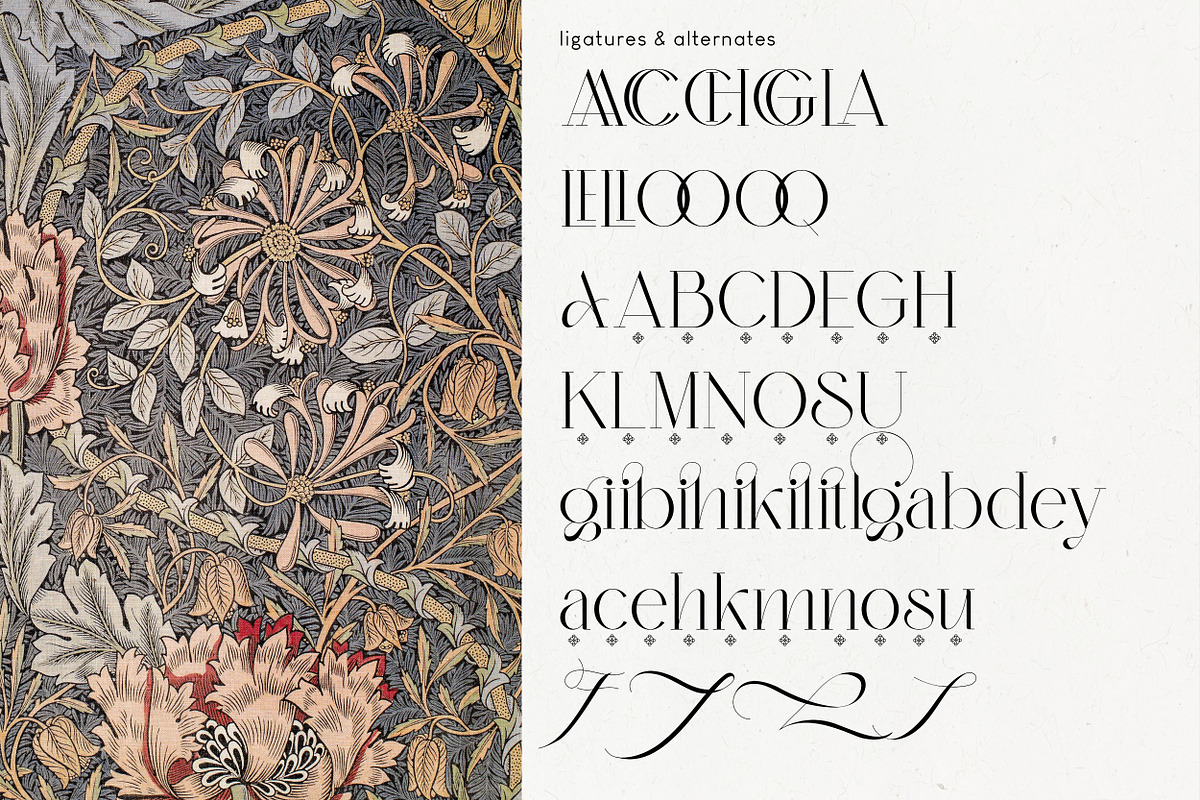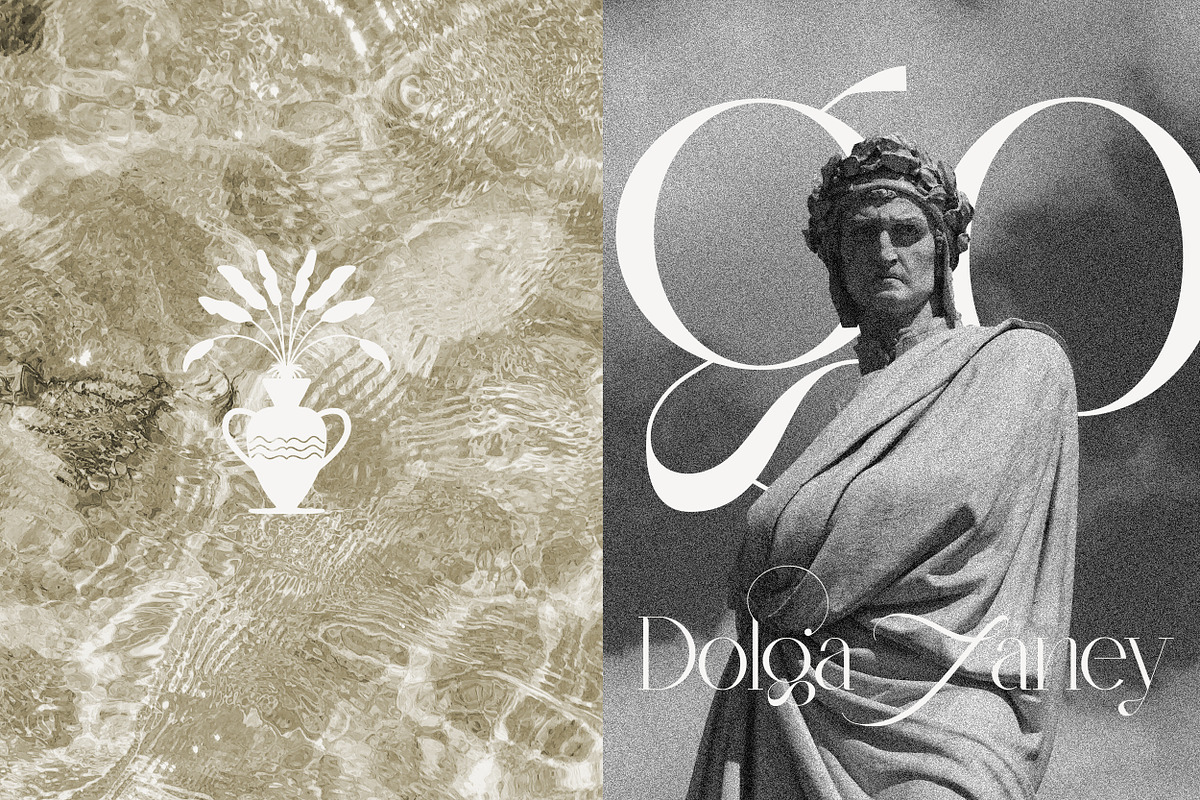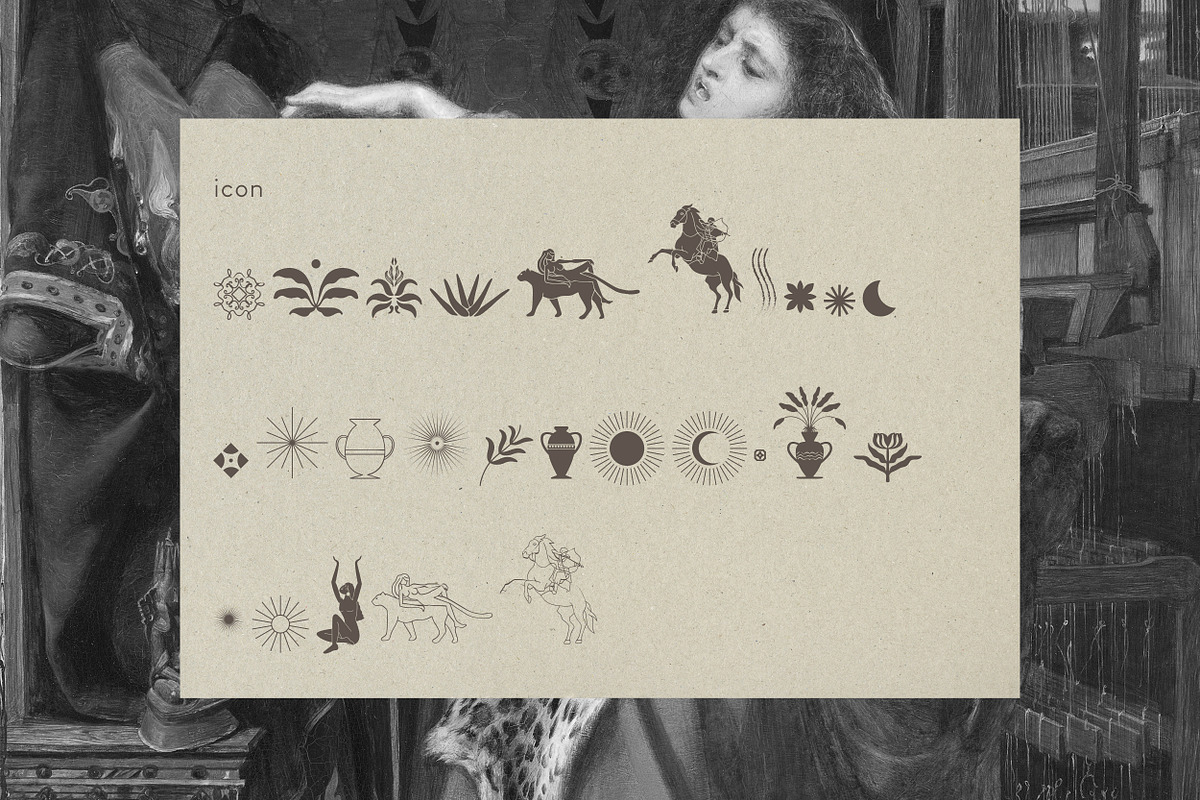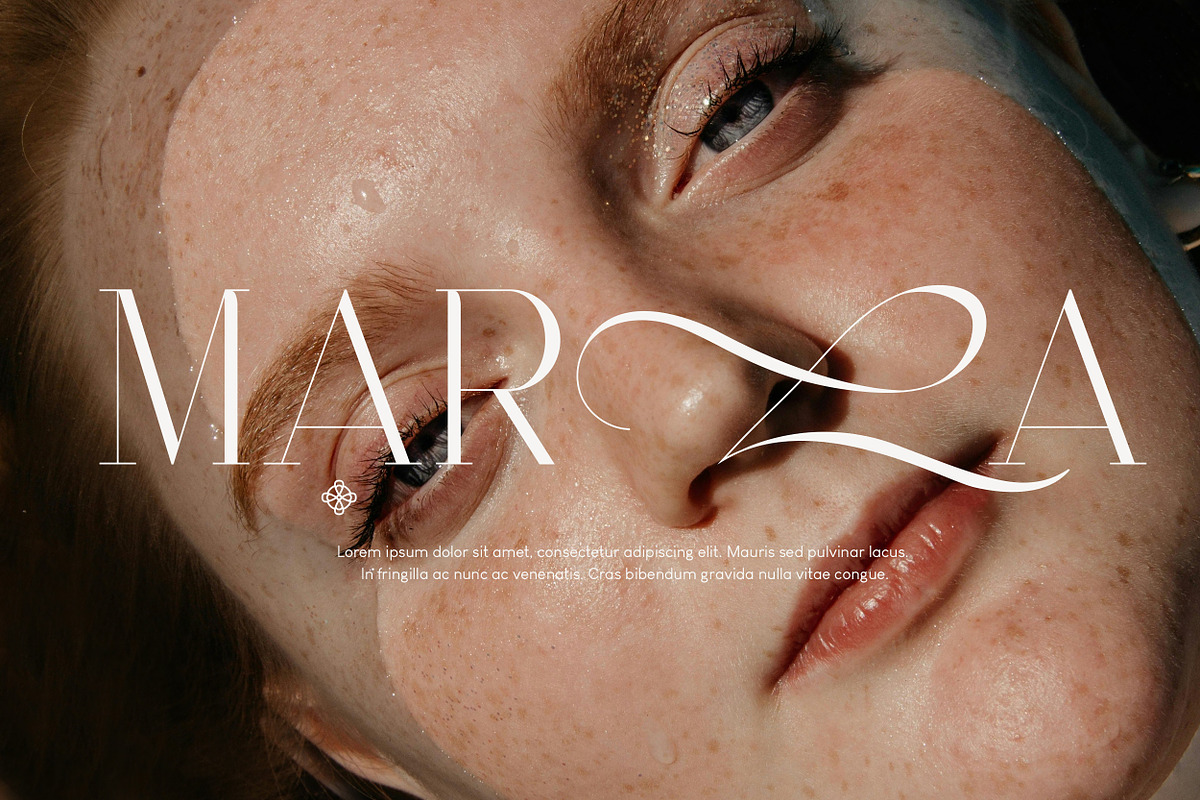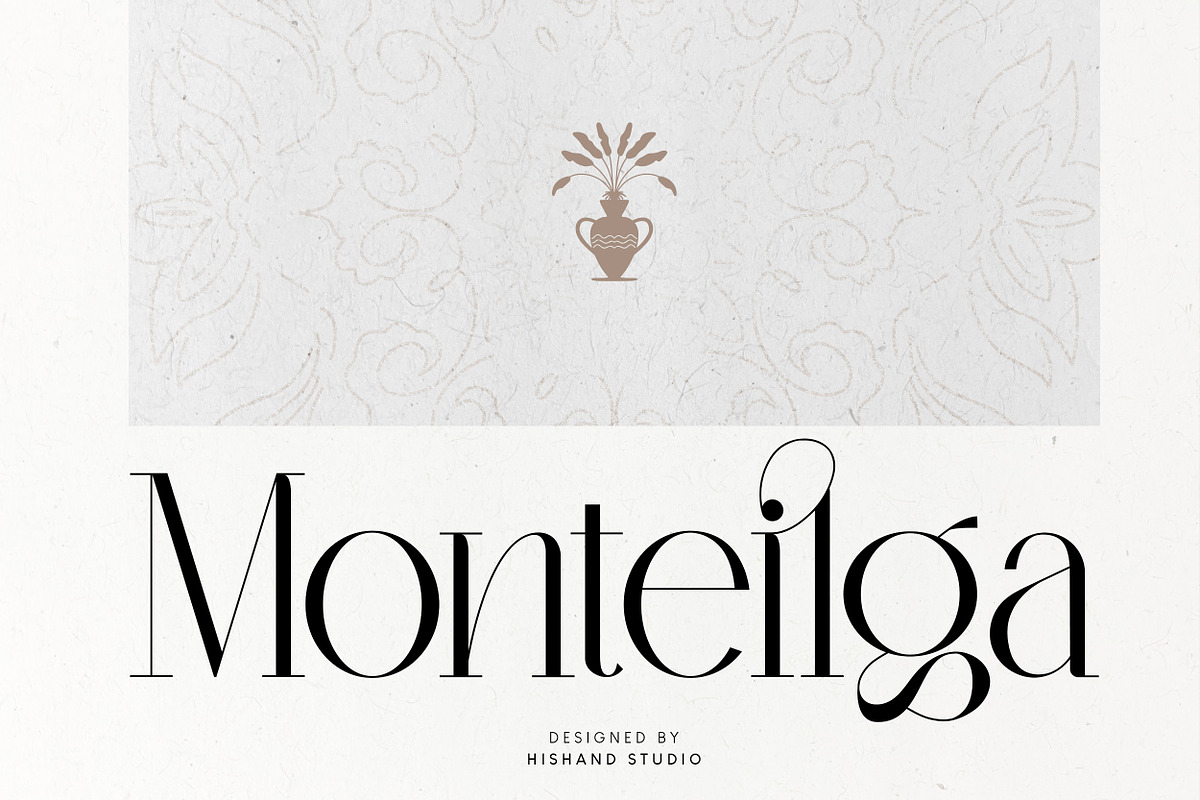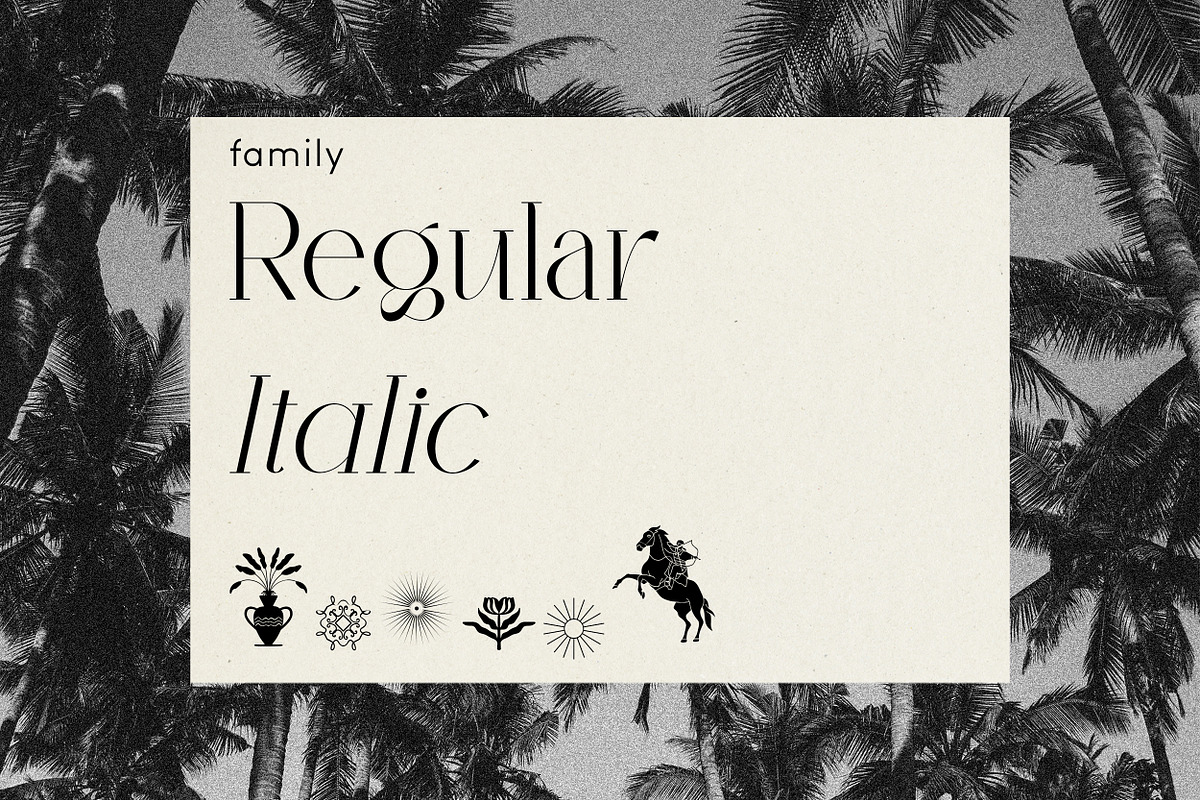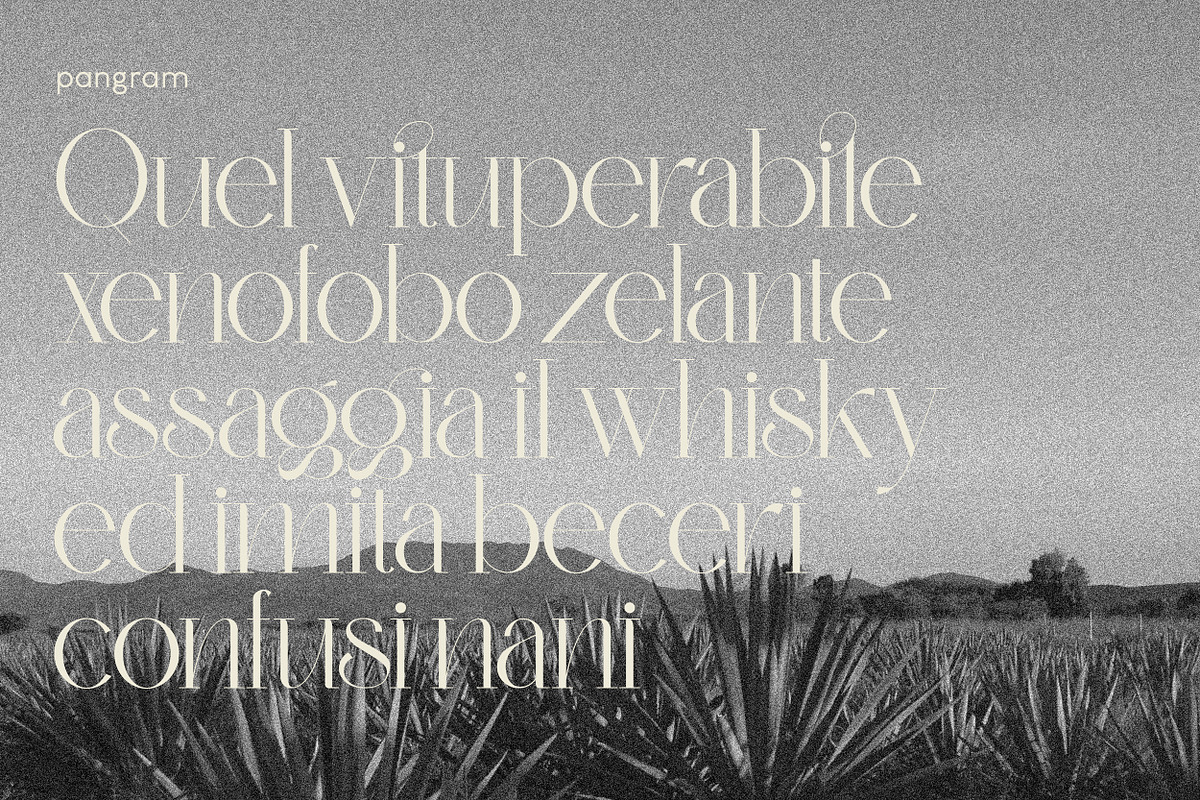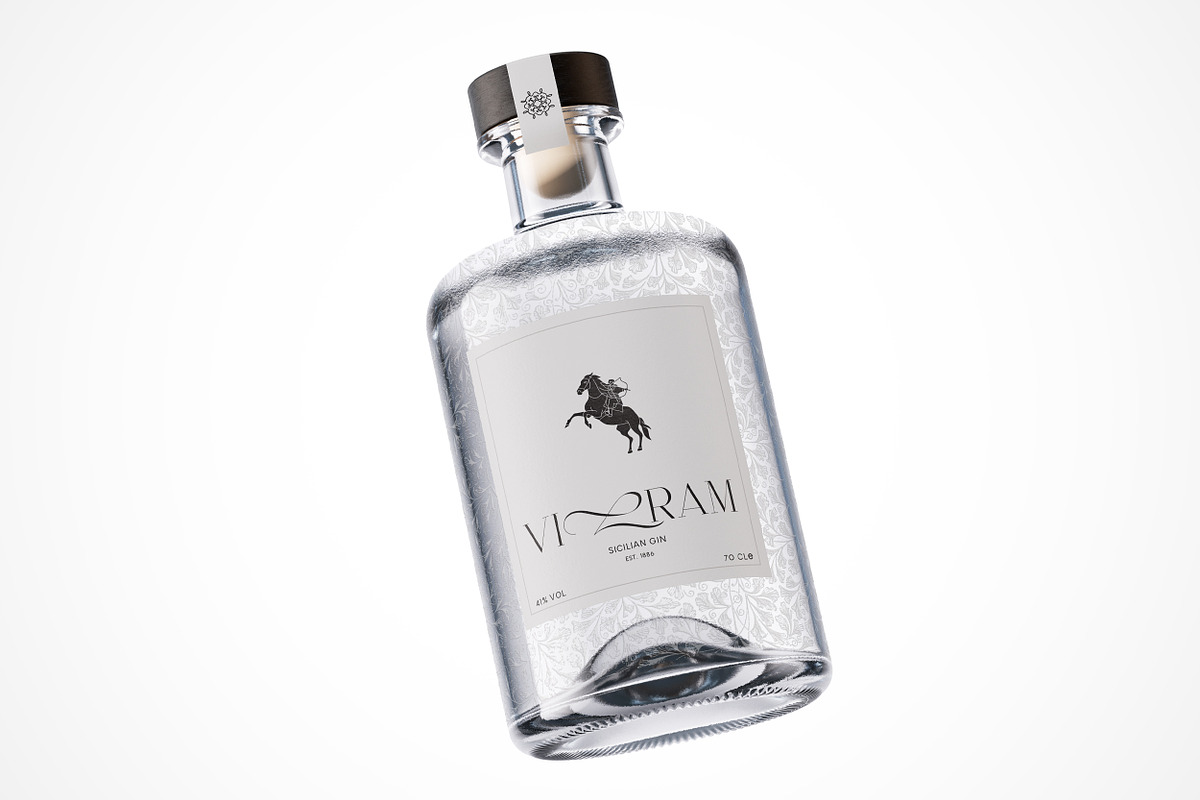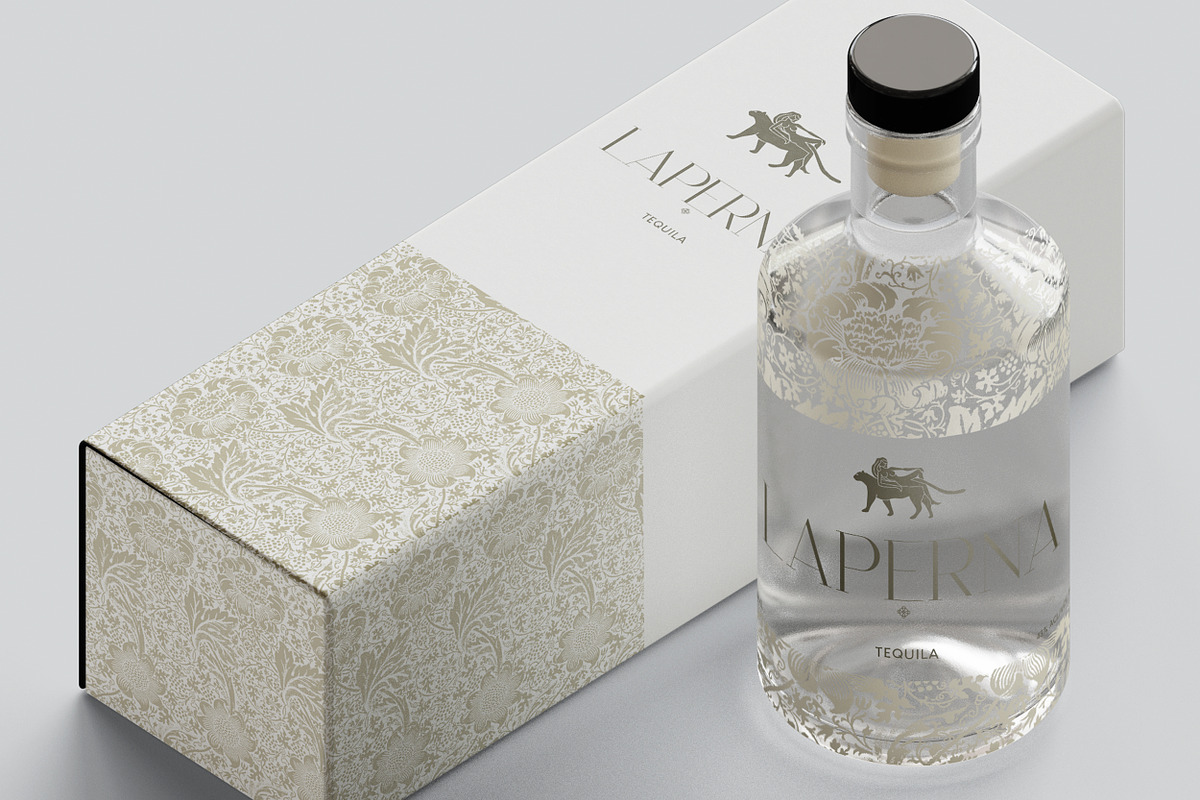
Monteilga Serif Font
Monteilga is a refined and luxurious serif font designed to elevate any project with its sophisticated aesthetic. Its graceful curves and elegant letterforms make it an ideal choice for logos, business branding, and wedding invitations. The font's timeless appeal adds a touch of class and exclusivity, ensuring that your designs stand out with a sense of prestige. Whether used for corporate identities, upscale events, or bespoke branding, Monteilga's versatile and stylish design enhances the visual impact, making it the perfect choice for those seeking elegance and luxury in their typography.
· ligatures
· alternates
· regular
· Italic
· icon
· kerning
· multilingual support